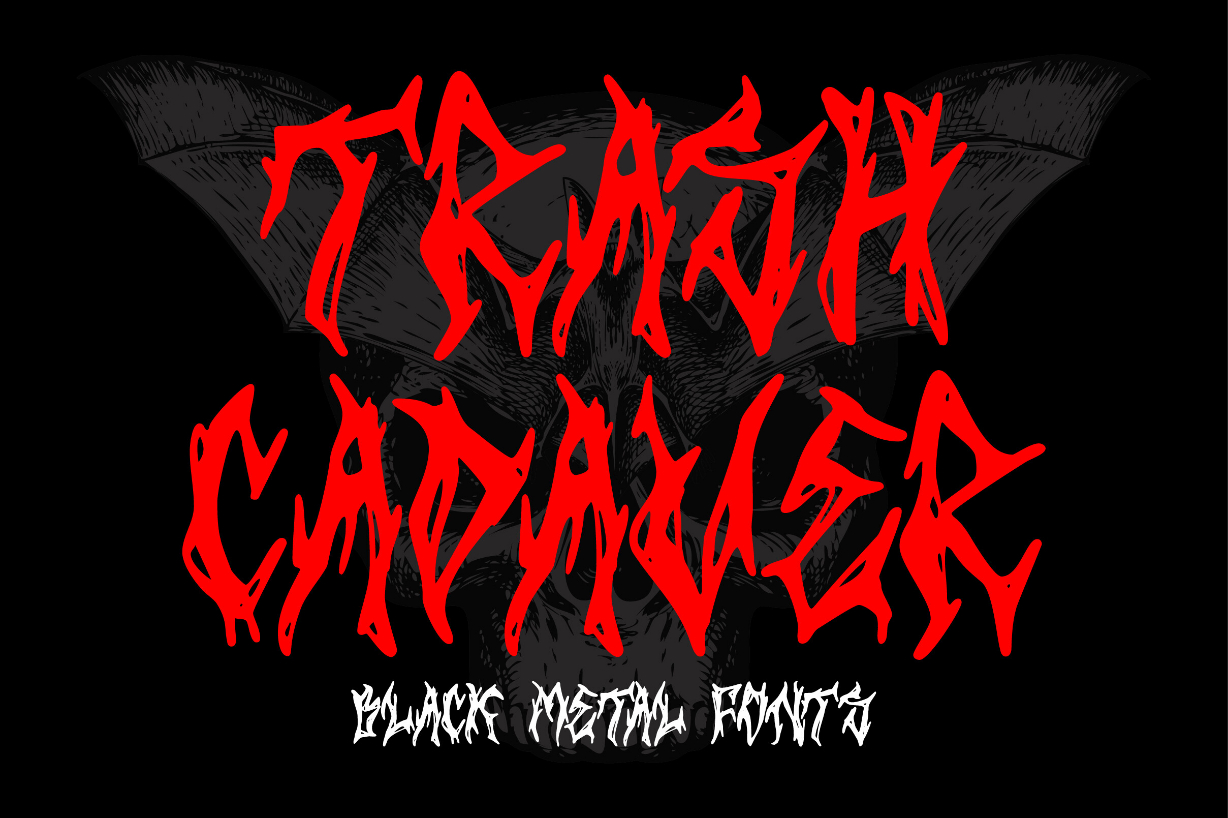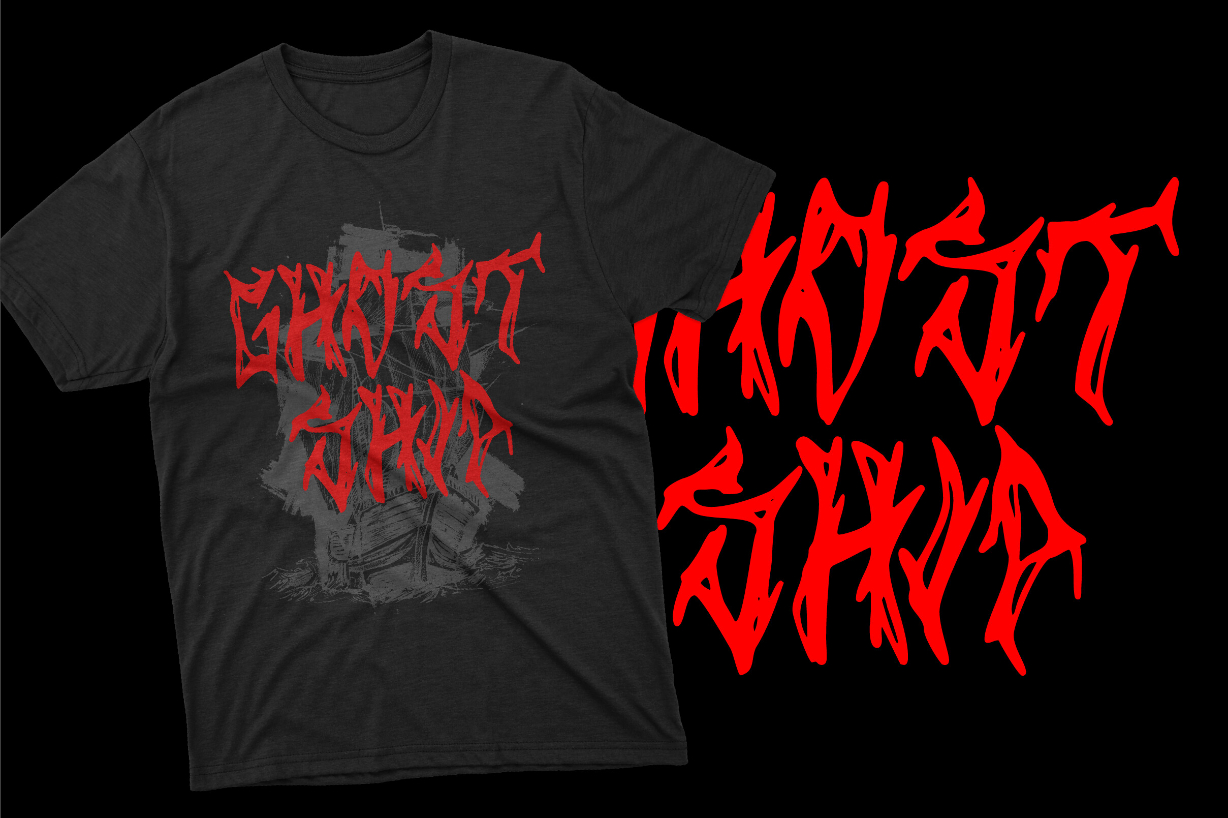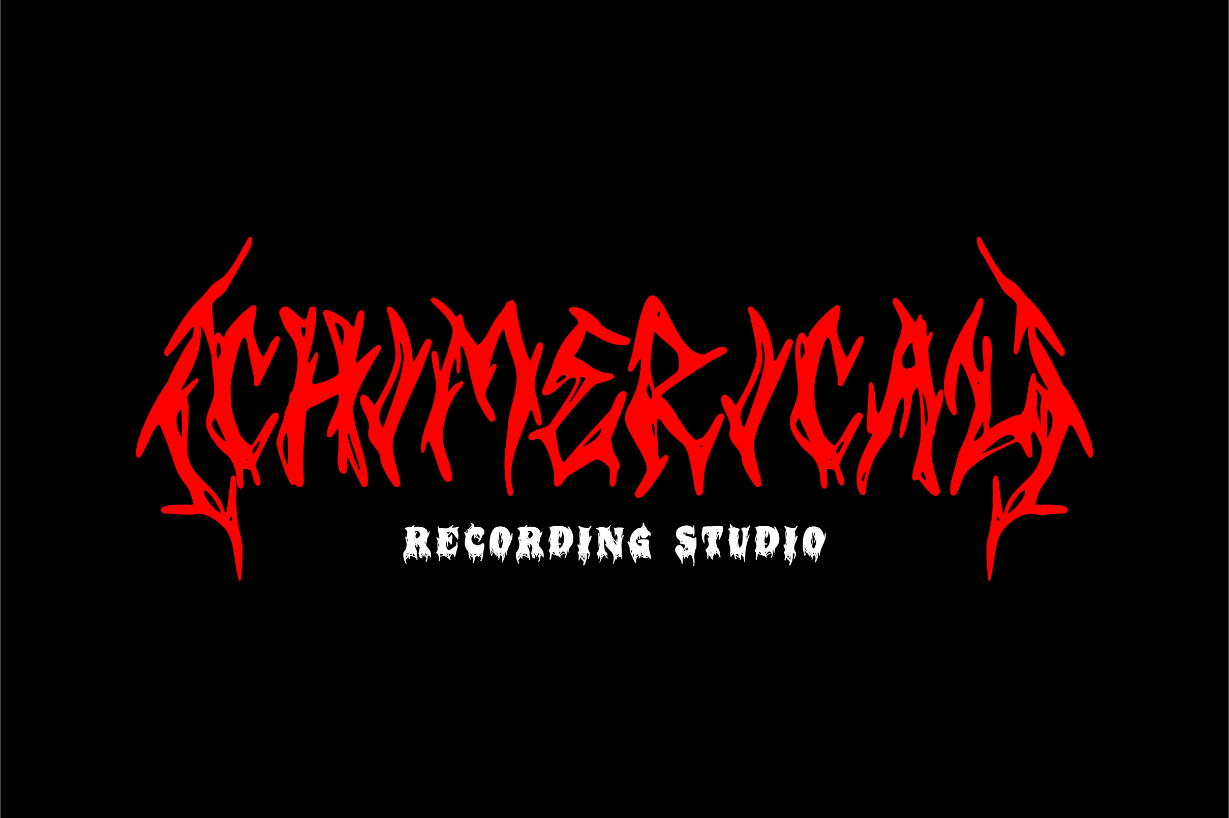
About Trash Cadaver Font
Presenting Trash Cadaver, a design powerhouse for those craving intensity and mystique. Crafted with angular, razor-sharp letterforms, it’s ideal for merchandise, logos, posters, and more. Ignite your creativity with the darkness of black metal, leaving a lasting impression that refuses to be ignored.